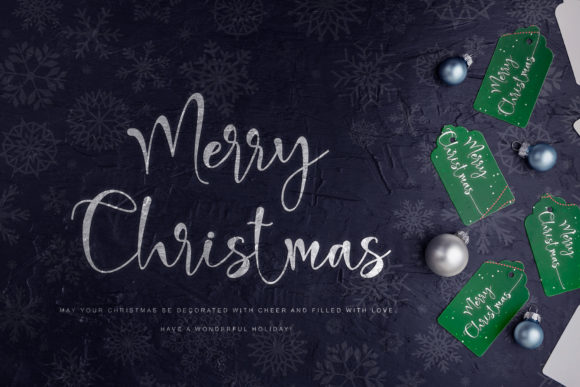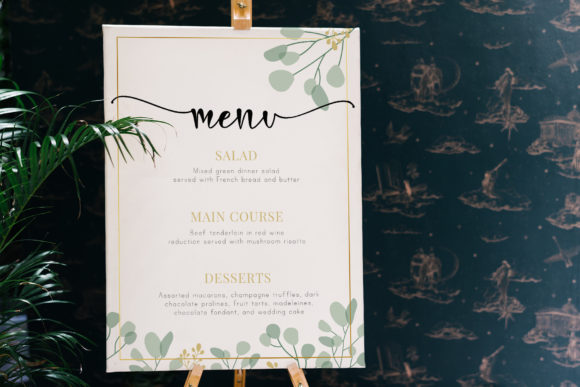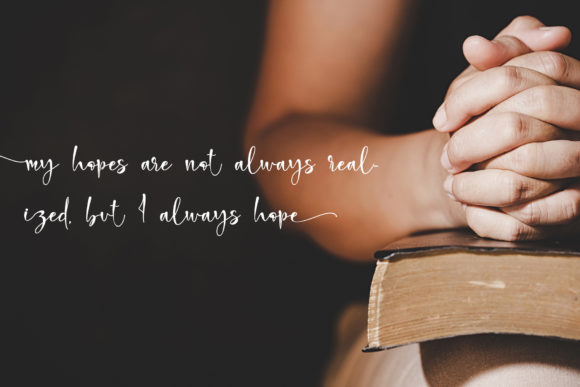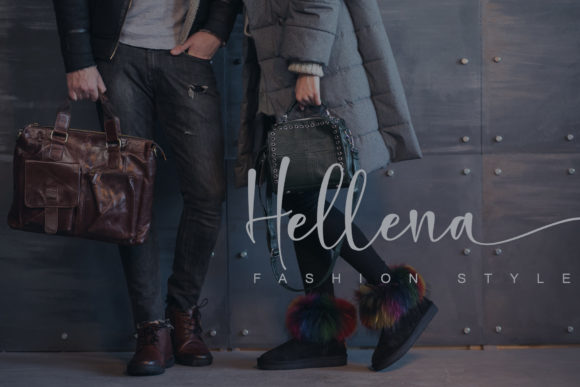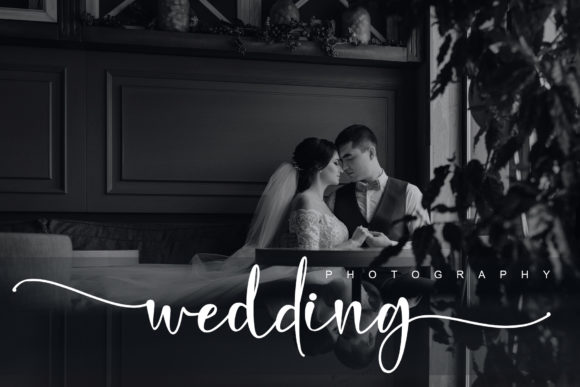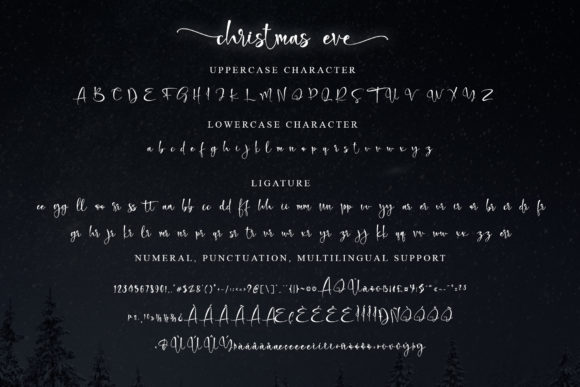
Introduction to Holy Christmas Eve Font
Holy Christmas Eve is a chic and modern calligraphy font.
It is ideal for crafting, branding, greeting cards and for adding a joyful touch to your designs It is PUA encoded which means you can access all of the glyphs and swashes with ease.